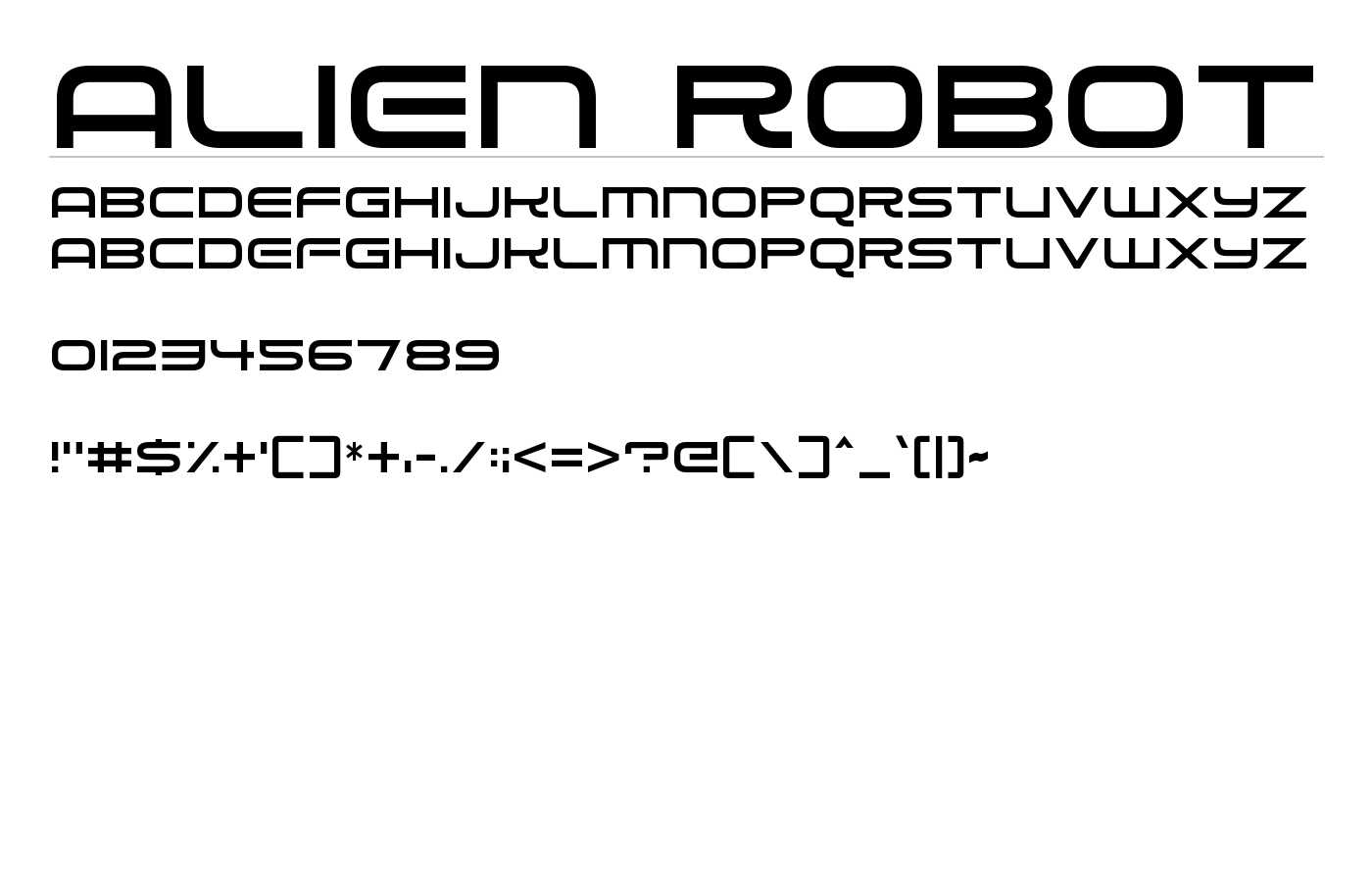
Alien Robot is a futuristic sans serif font with a sleek, geometric design and a medium weight that balances modernity with readability. Its squared shapes, rounded corners, and unique letterforms give it a tech-savvy, robotic personality, making it ideal for sci-fi branding, tech interfaces, and modern headlines. This font works well where a clean, cutting-edge look is needed to convey innovation and forward-thinking style.
Alien Robot Font
About Alien Robot Font
| Font family | Alien Robot Font |
| Designer | Darrell Flood |